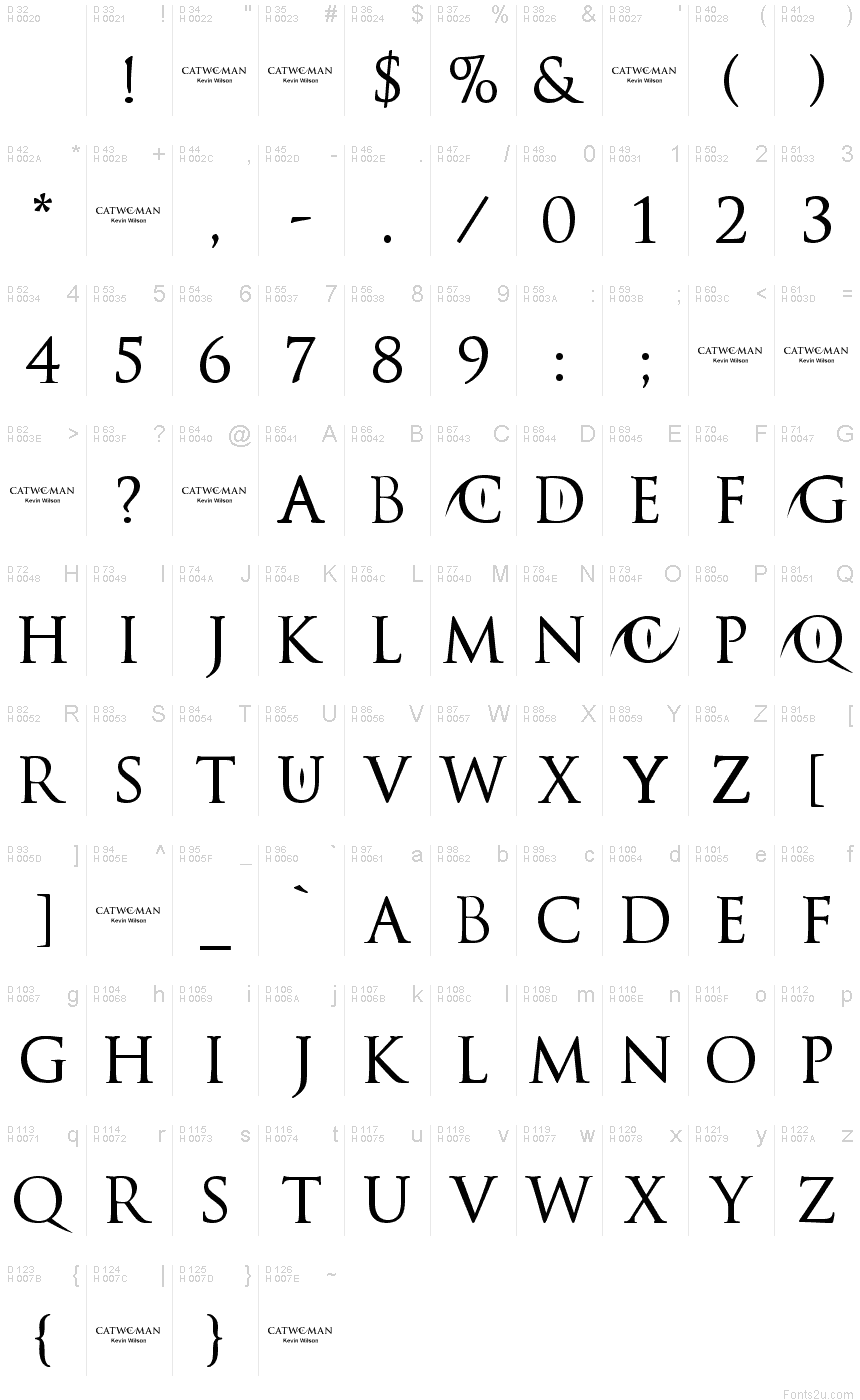
Catwoman
Catwoman font by Kevin Wilson is a free decorative display font; this typeface strikes like a claw—tall, inky strokes, razor serifs, and sly cat-eye cutouts that make every word feel watchful and dramatic. The spacing stays clean enough to read, but the silhouette is pure midnight theater, with a sharp rhythm that turns headlines into a scene.
Using Catwoman works beautifully for movie-style posters, comic covers, Halloween promos, band merch, nightclub flyers, game titles, book jackets, and punchy logo wordmarks. Set it large so the “eye” details don’t get lost, and pair it with a plain sans (like a neutral grotesk) for supporting text—this free font does the starring while the rest stays quiet.